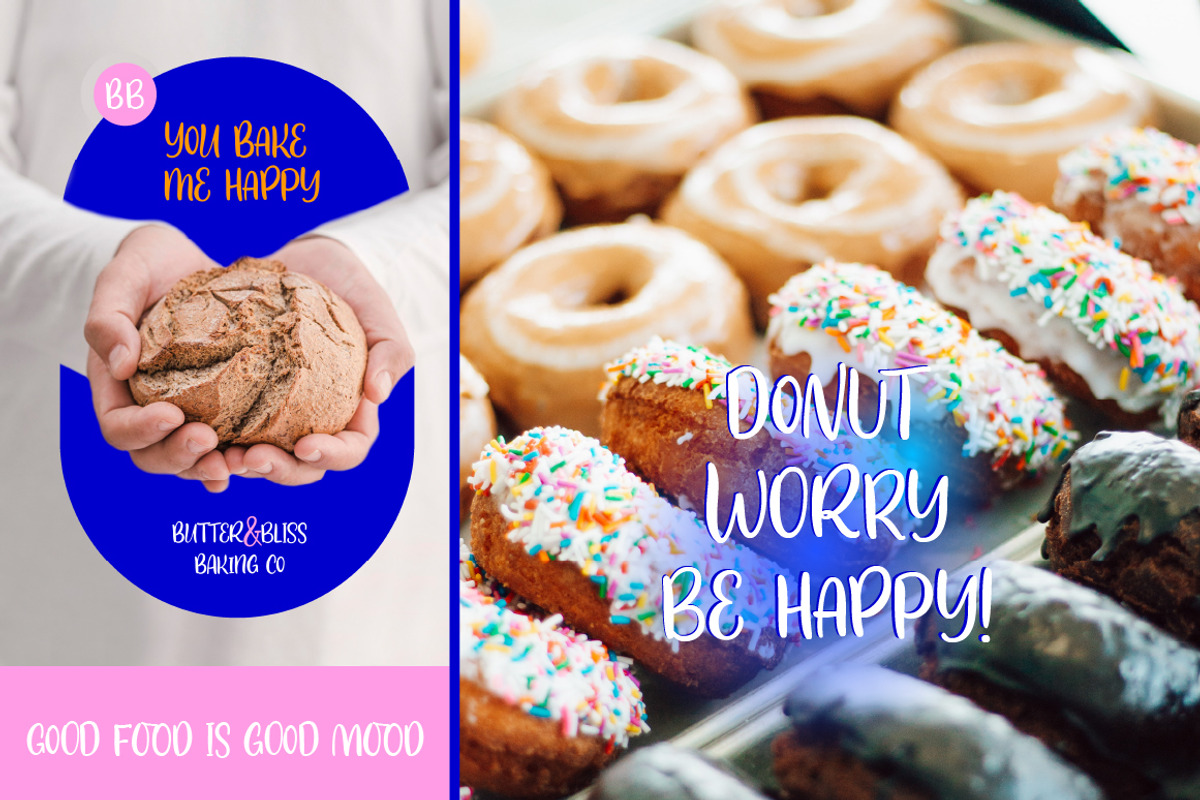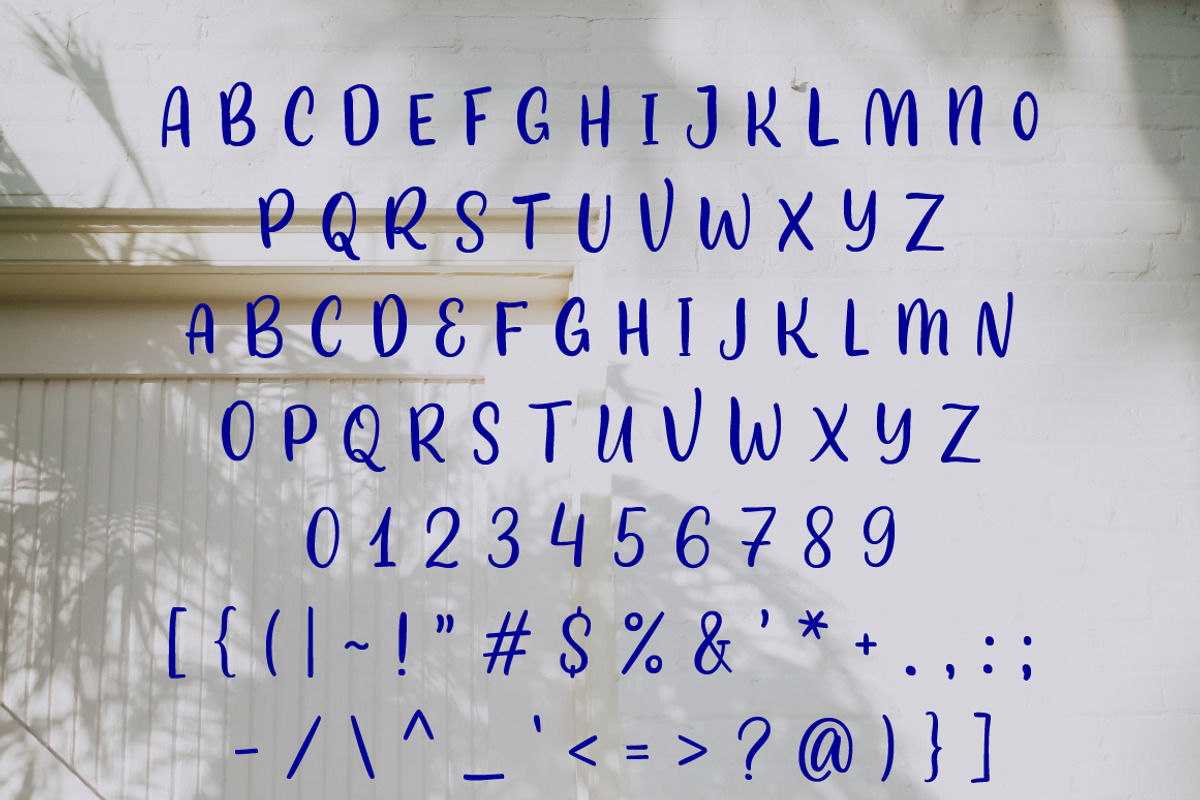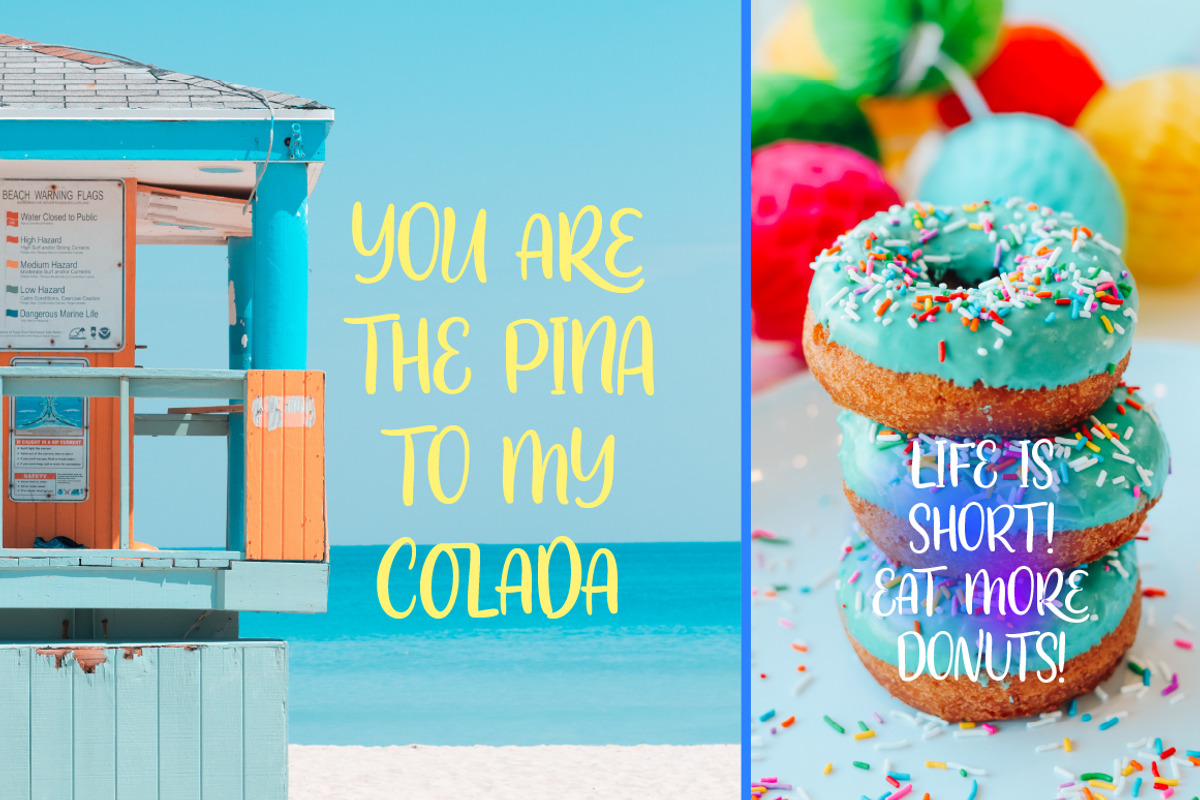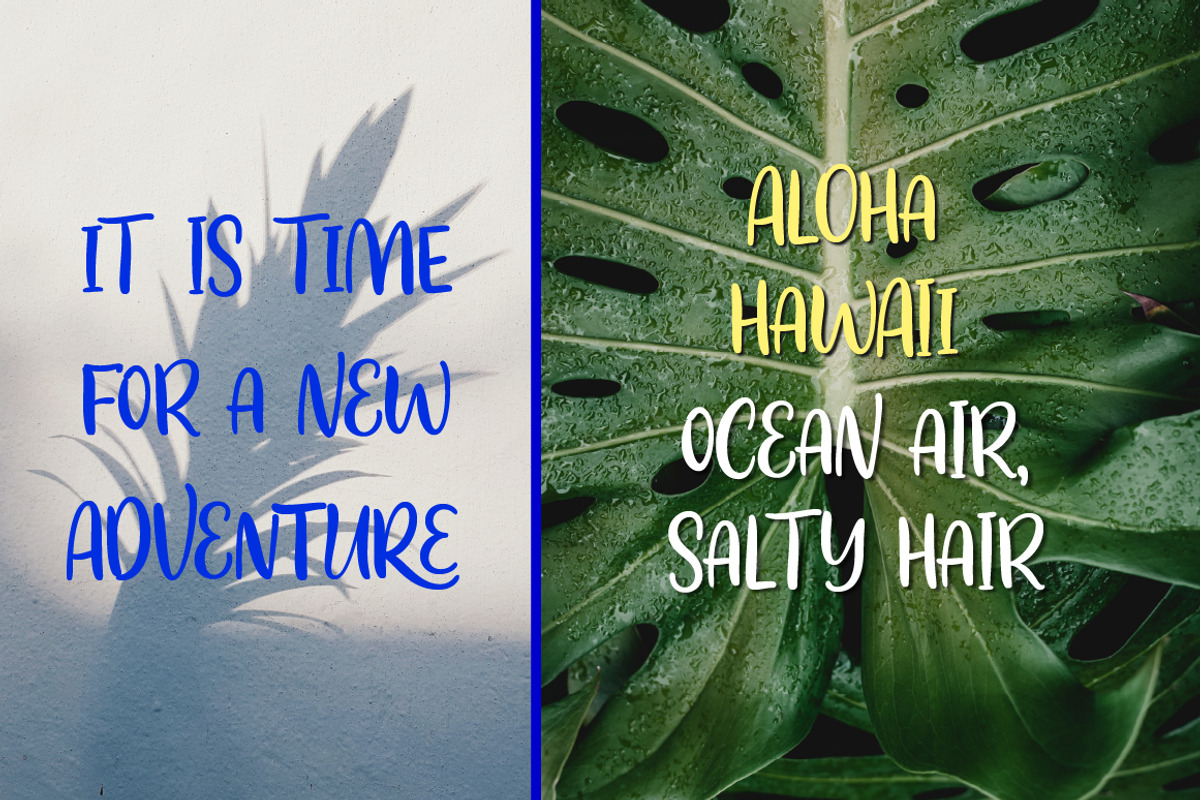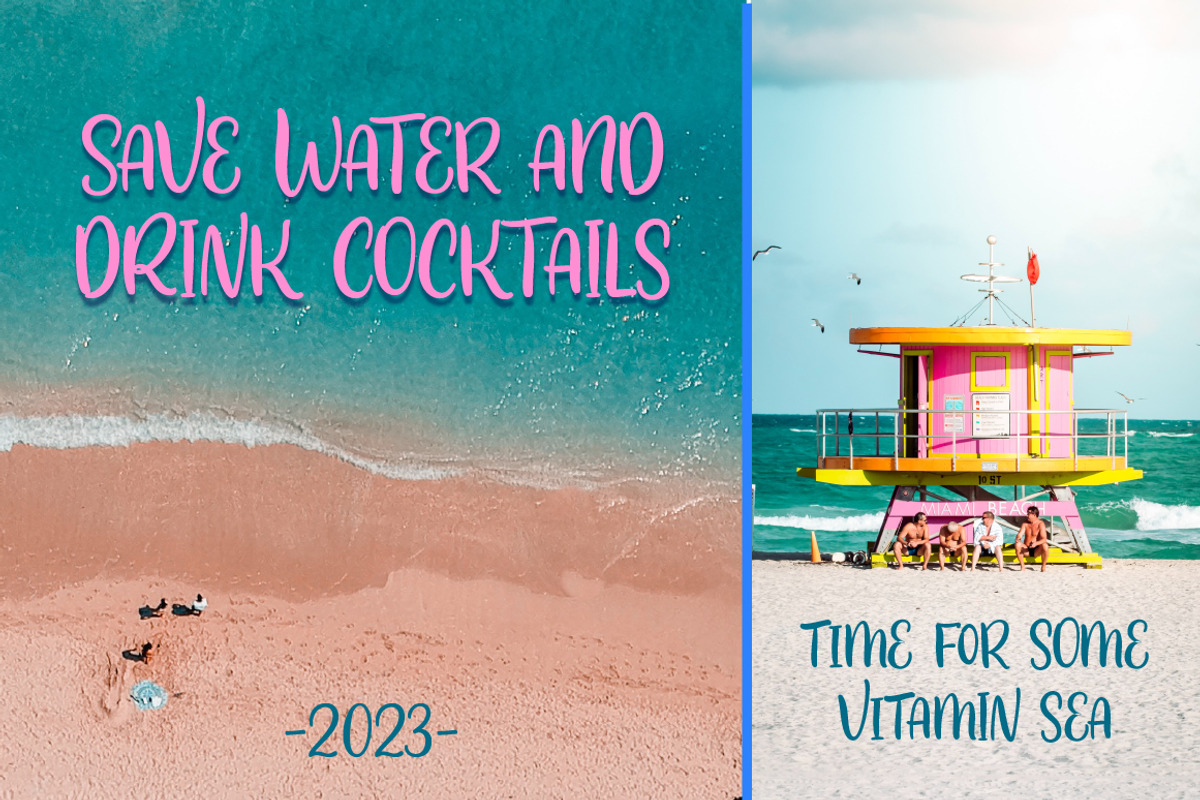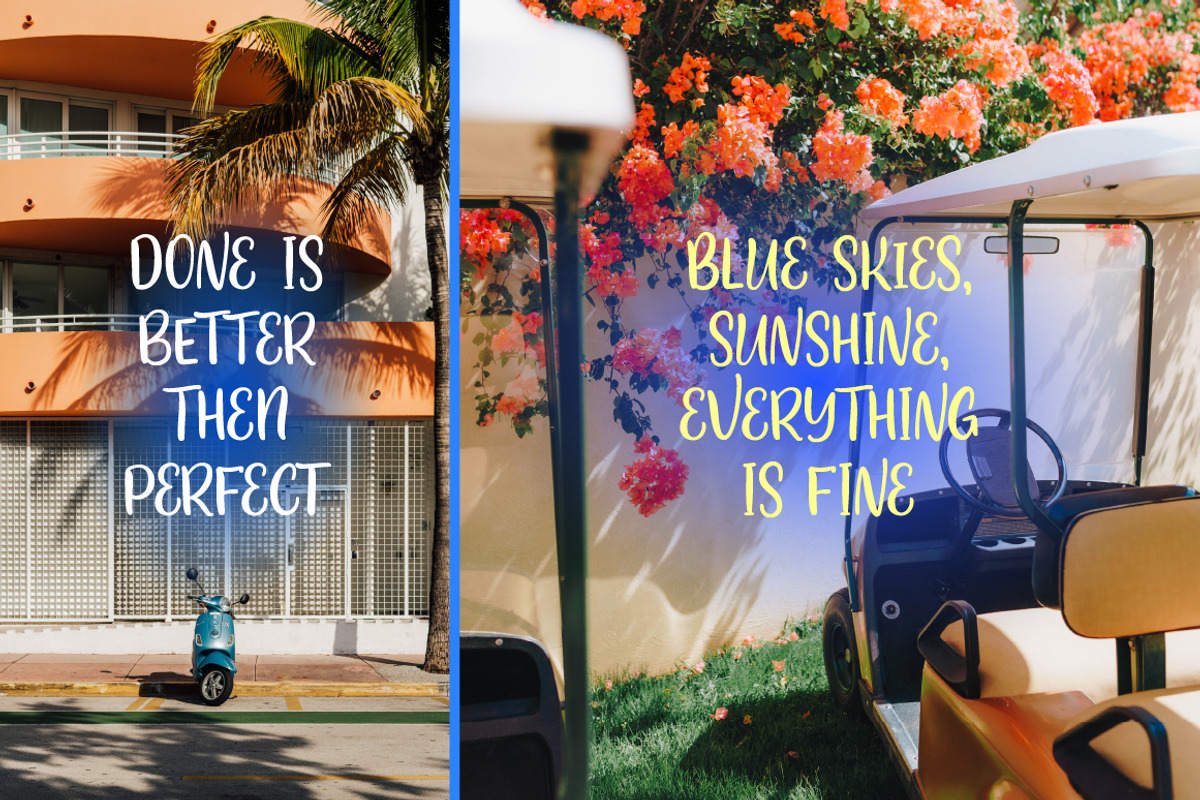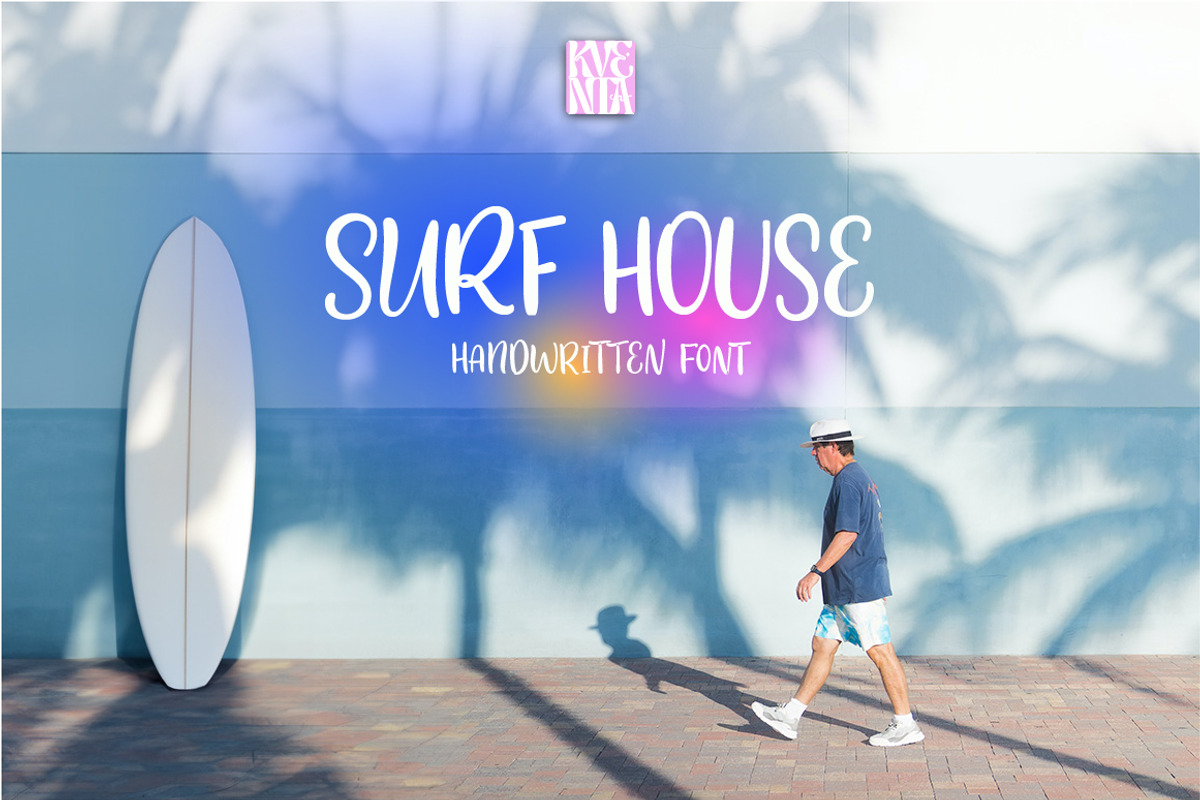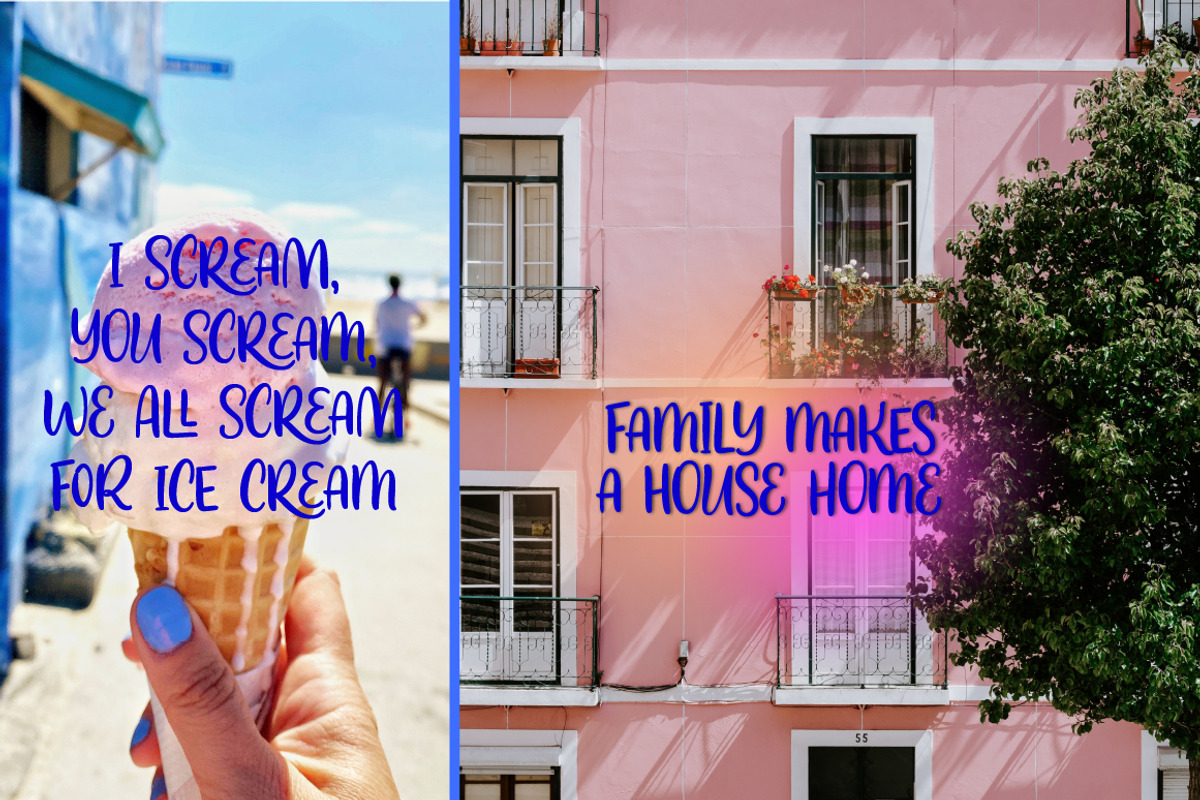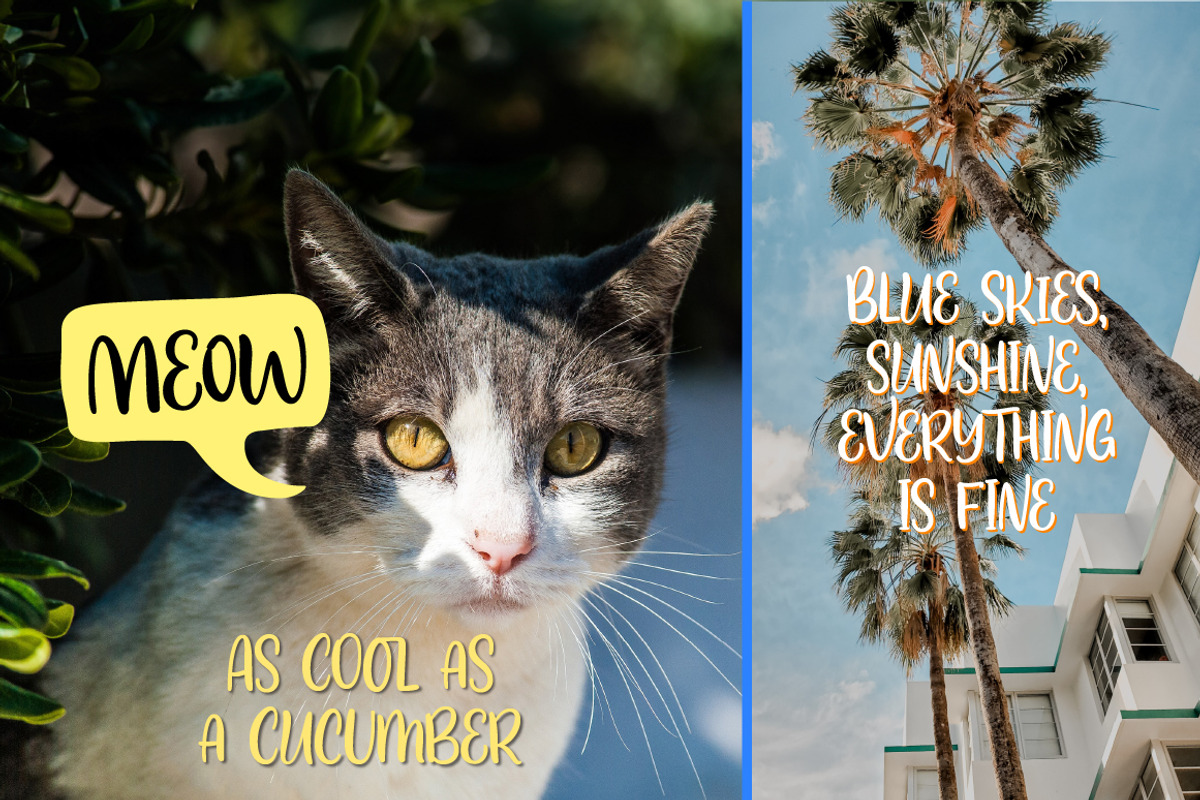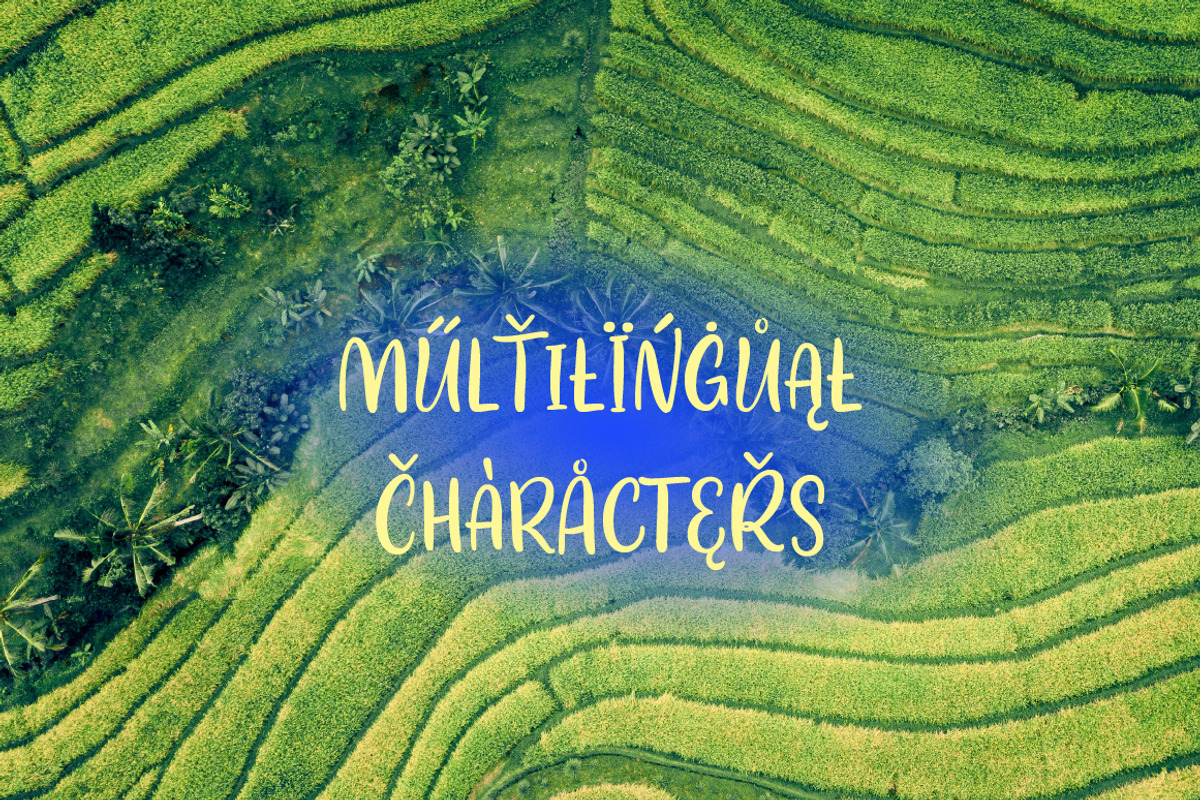
Surf House Handwritten font
Surf House is a freehand casual brush script with alternatives and ligatures.
Perfect for creating quotes, logos, or just adding a hand-written touch to any project! Try it out yourself in the preview section - what you see is what you get!
-Regular Script
-Multilingual languages support
-Uppercase and lowercase
-Numbers and punctuation